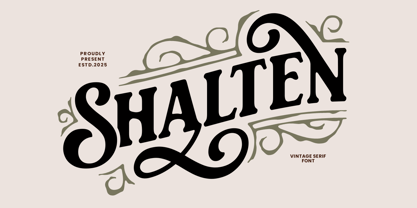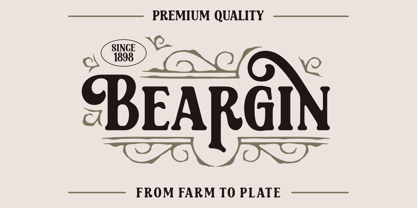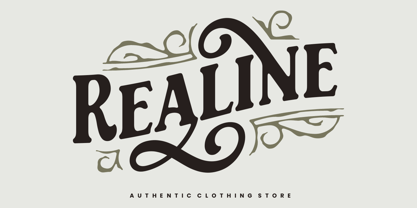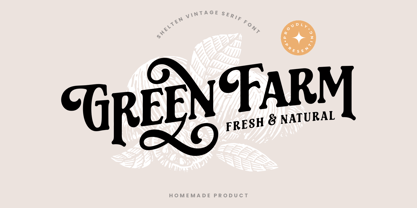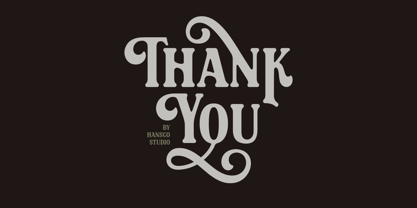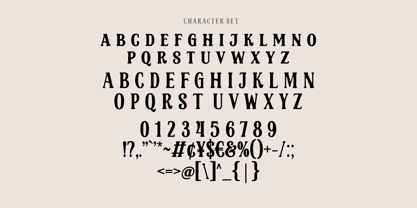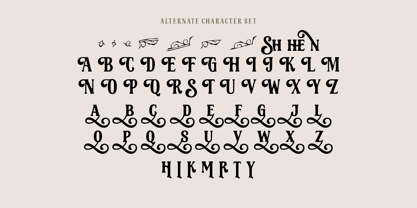
Shalten
by HansCo
The Shalten Font Family was designed by Burhan Afif and published by HansCo. Shalten contains 1 styles.
Shalten Font is a Bold Vintage font, it will add an old-time charm to any design project. Don’t miss the opportunity to infuse your designs with the elegance and nostalgia of vintage typography. Our vintage font is the perfect companion for your creative journey. With its multiple formats, alternative characters, and ornamental elements, it’s never been easier to bring the timeless charm of the past into your modern projects. This collection of font is perfect for everything your project with vintage, retro, wild or organic style. It was made with the intention of being used for product Logo like a Pomade, Coffee, Barber shop or packaging label. It’s great also for Branding, Logo designs, Lettering, Logotype, Craft, Posters and much more.
Designers: Burhan Afif
Publisher: HansCo
Foundry: HansCo
Design Owner: HansCo